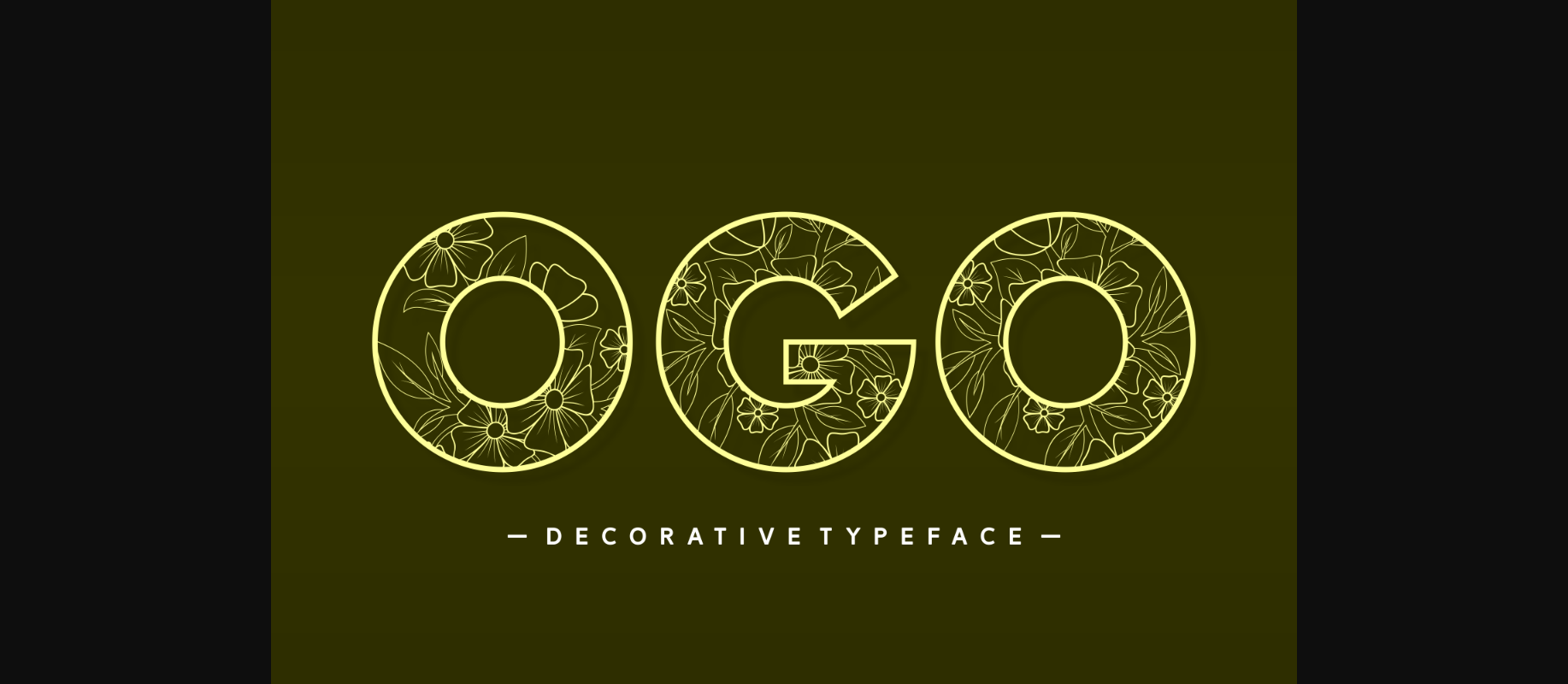
About Ogo Font
Ogo is a modern and unique decorative font that adds a touch of extravagance to any design project. With its intricate details and stylish letterforms, Ogo is perfect for creating designs that require a bold and creative touch. Whether you’re designing invitations, packaging, or social media graphics, Ogo is the perfect choice for those who want to create a distinctive and memorable look.